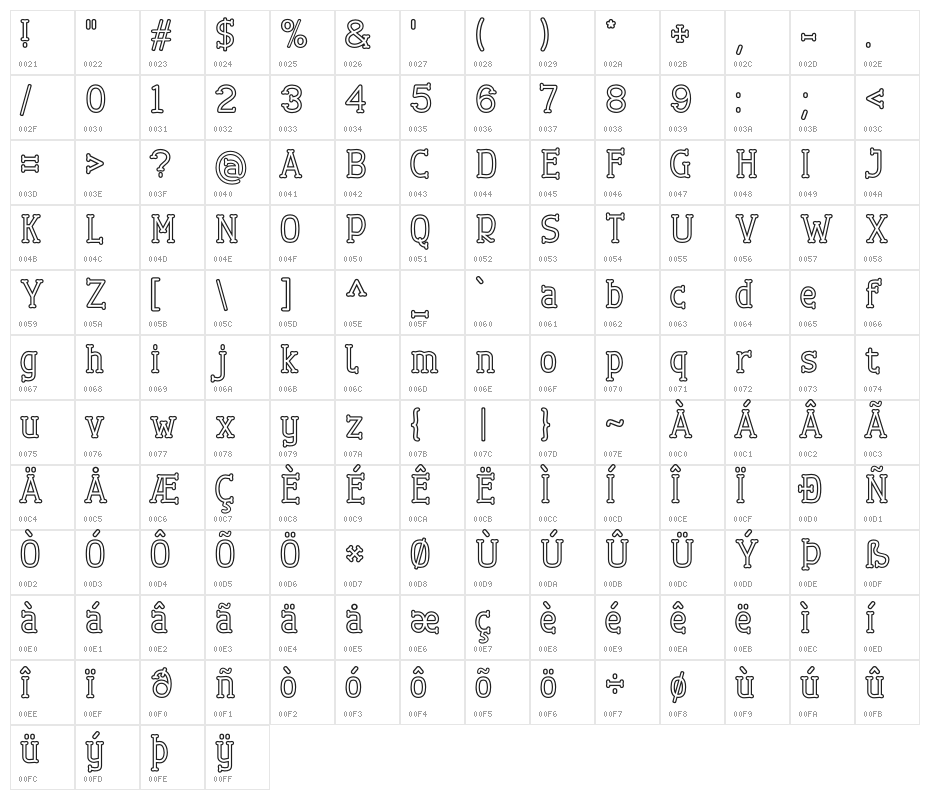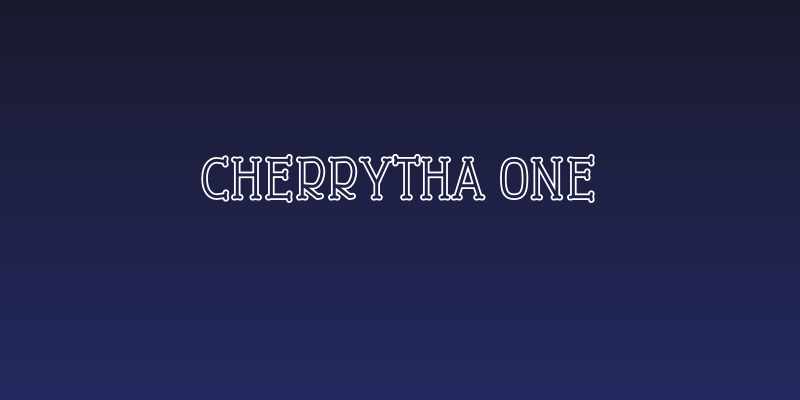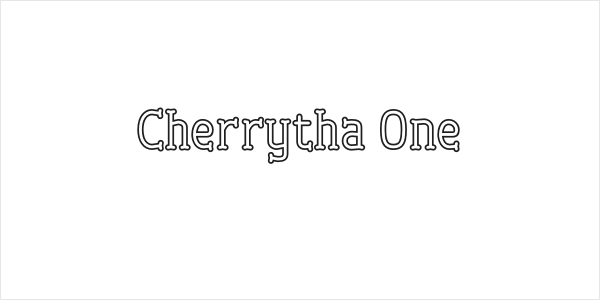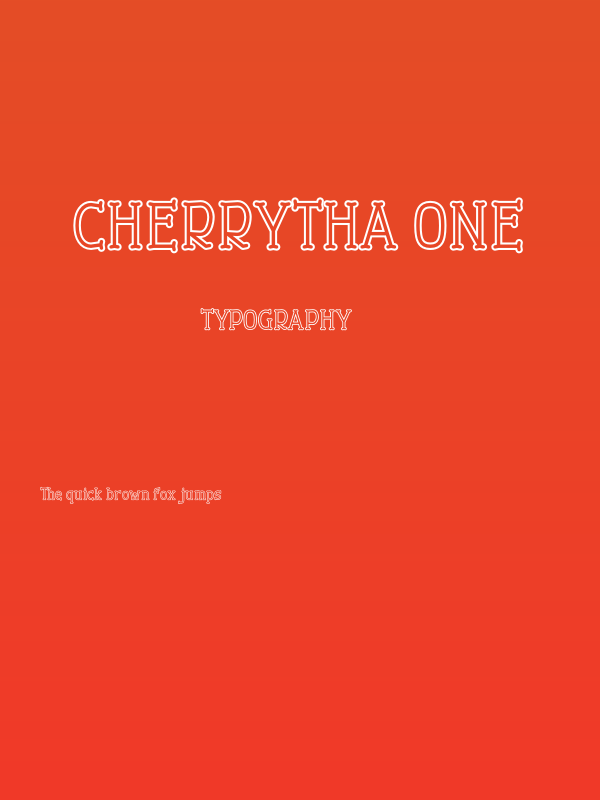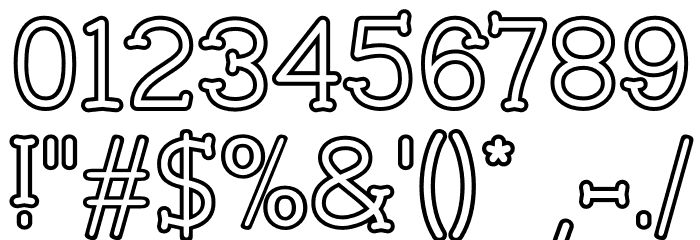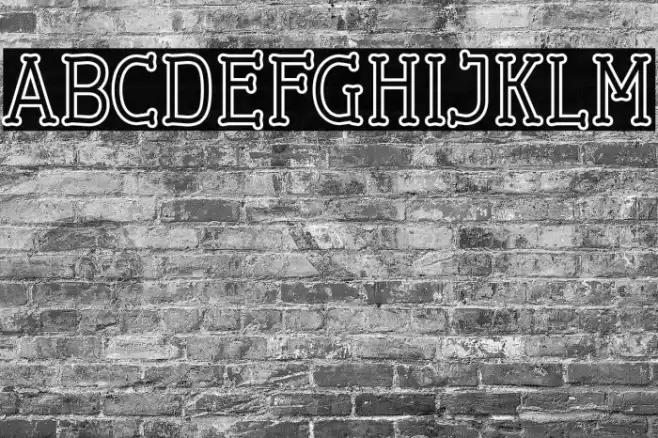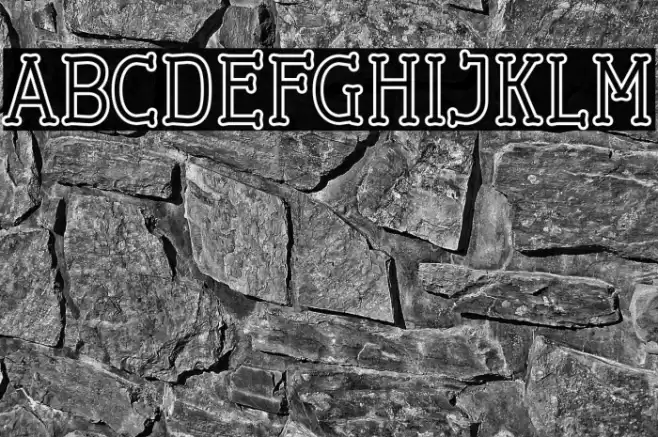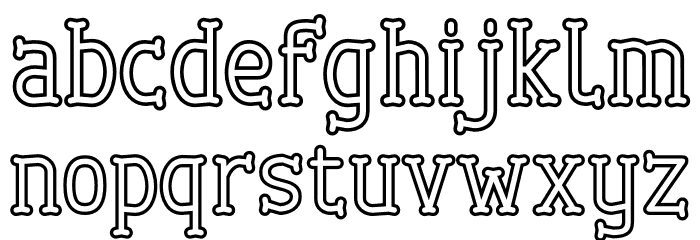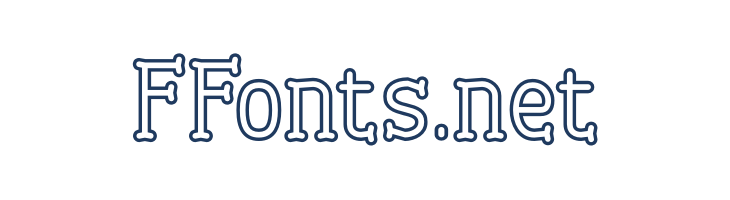
Cherrytha One Font
Cherrytha One Description
This font features a playful and decorative style with a bold outline that gives it a unique and eye-catching appearance. The characters are well-defined with a consistent stroke width, creating a harmonious and balanced look. The uppercase and lowercase letters maintain a uniform design, while the numbers and special characters complement the overall aesthetic. The font's whimsical nature makes it suitable for creative and informal projects, adding a touch of fun and personality to any design.
| Proposed Projects | Ideal for children's books, greeting cards, playful branding, and creative posters. |